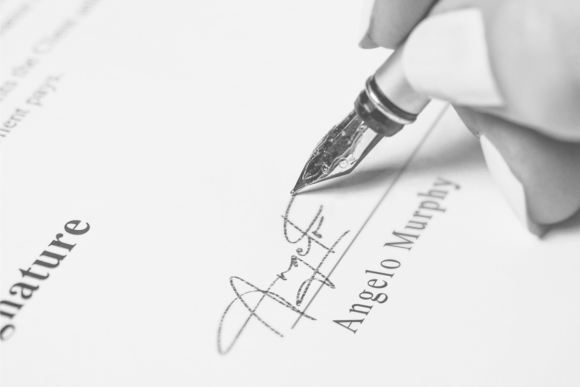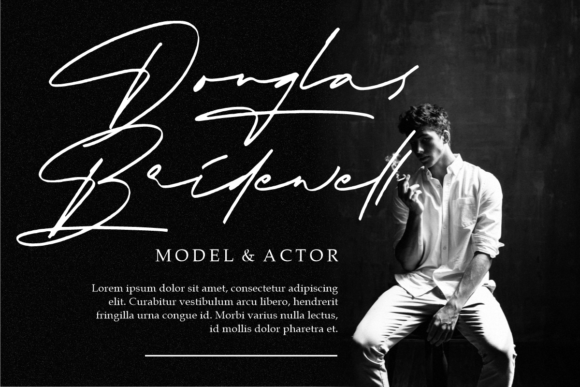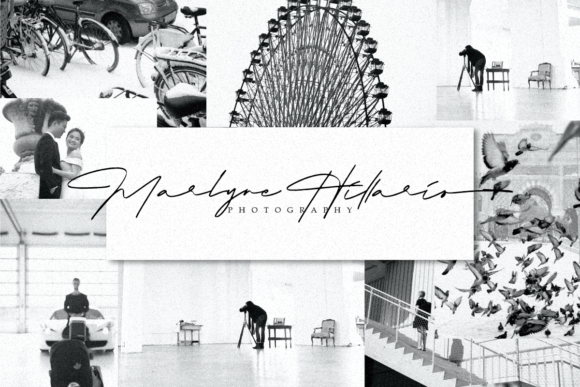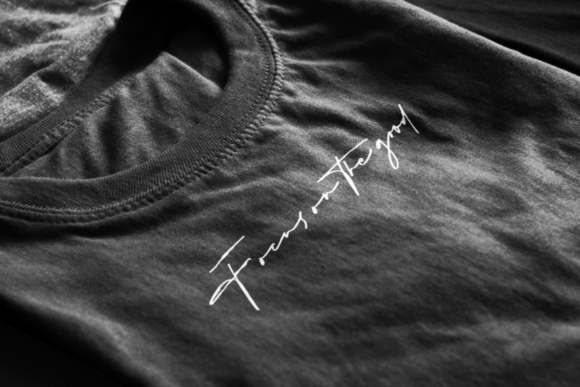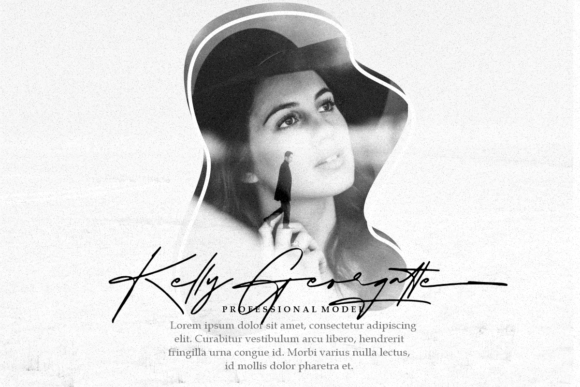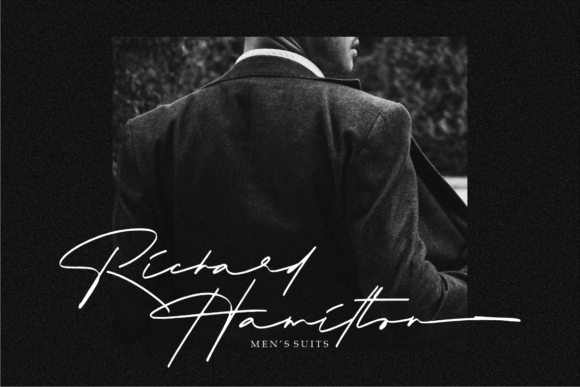
Unleashing the Charm of Handwritten Elegance
Have you ever stumbled upon a beautiful handwritten note or a heartfelt letter that left you feeling touched and inspired? For me, it’s those moments that remind me why I love design – the emotional connection, the personal touch, and the ability to make someone’s day a little brighter.
That’s exactly what the Ashgabat Natural Signature Font aims to bring to your designs. This elegant font is perfect for adding a handwritten touch to your wedding invitations, thank you cards, quotes, and more. As a designer, you’ll appreciate its versatility and the value it can add to your projects. With the Ashgabat Natural Signature Font, you can infuse your designs with a sense of warmth and personality that’s hard to replicate with digital fonts.
Ashgabat Natural Signature Font Key Features
- Font Family: A unique, hand-drawn font designed to resemble the signature of the President of Turkmenistan, Gurbanguly Berdimuhamedow.
- Unique Characteristics: The font features a distinctive, flowing style with curved lines and subtle flourishes, giving it a personal and elegant feel.
Ashgabat Natural Signature Font Review
Overall, I think the Ashgabat Natural Signature Font has a lot of potential. Here’s what works well: ✨
- Unique letterforms: The font’s custom letterforms give it a distinctive, hand-crafted feel that’s perfect for designers looking to add some personality to their projects.
- Legibility: Despite its unique style, the font is surprisingly legible, making it suitable for a wide range of applications.
- Scalability: Ashgabat Natural Signature Font looks great in both small and large sizes, making it a versatile choice for designers.
- Lack of consistency: While the font’s unique style is one of its strengths, it can also be inconsistent in certain aspects, such as kerning and spacing.
Overall, I think the Ashgabat Natural Signature Font is a solid choice for designers looking for a unique, hand-crafted feel. While it has its limitations, its strengths make it a great option for projects where you want to add some personality to your typography.
1. Use the Ashgabat Natural Signature Font for headings and titles to create a unique and eye-catching design.
2. Pair the font with a clean and simple sans-serif font for body text to create a balanced design.
3. Experiment with different font sizes and styles to create a dynamic and visually appealing design.
The Ashgabat Natural Signature Font is ideal for:
1. Branding and identity design.
2. Creative and artistic projects.
3. Fashion and lifestyle design.
Alternatives to Ashgabat Natural Signature Font
Playfair Display is a luxurious, high-end serif font ideal for creating elegant and sophisticated designs. It features intricate details and ornate flourishes, making it perfect for titles, headings, and luxury branding.
Comparison to Ashgabat Natural Signature Font: While Ashgabat is more modern and minimalistic, Playfair Display is more traditional and ornate. Playfair Display is better suited for formal, high-end designs, whereas Ashgabat is more versatile and suitable for a wider range of applications.
Great Vibes is a modern, elegant script font that exudes sophistication and refinement. It’s perfect for creating eye-catching headlines, logos, and titles that demand attention.
Comparison to Ashgabat Natural Signature Font: Great Vibes is more fluid and cursive compared to Ashgabat’s more angular and modern feel. While Ashgabat is ideal for clean and minimalistic designs, Great Vibes is better suited for more luxurious and high-end branding.